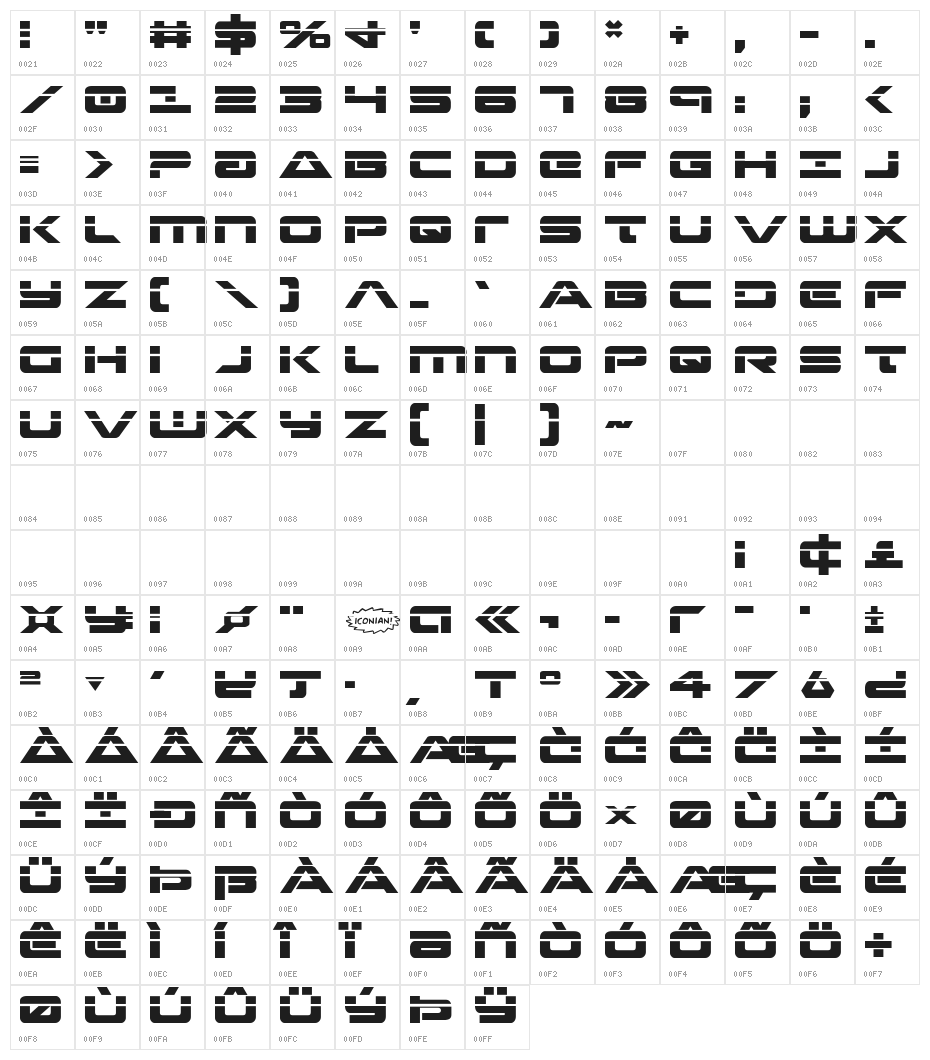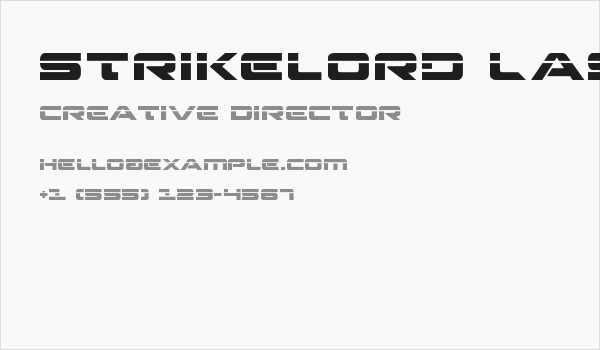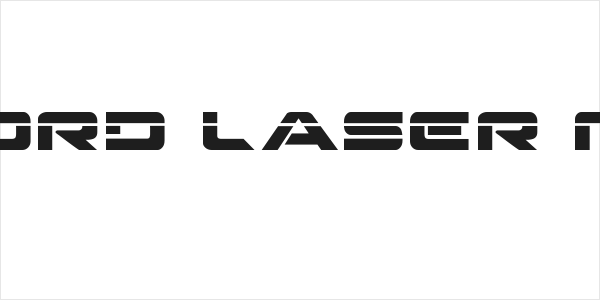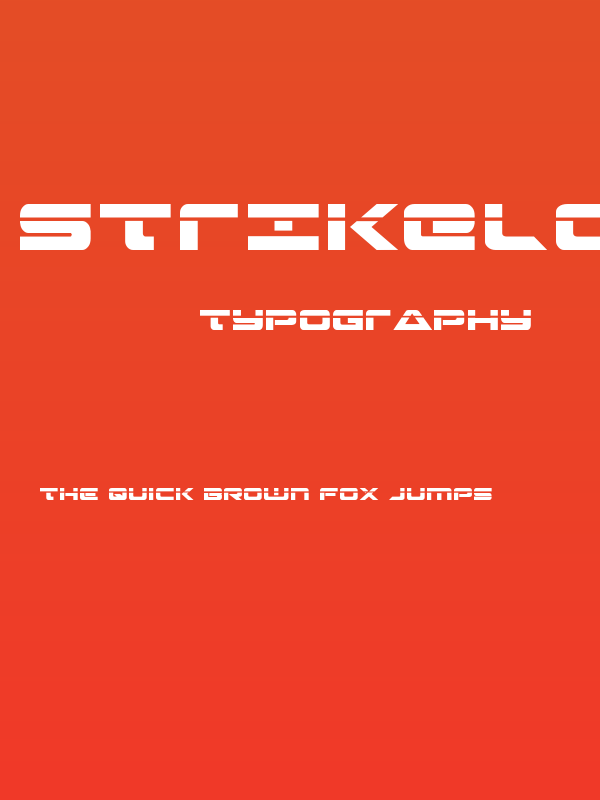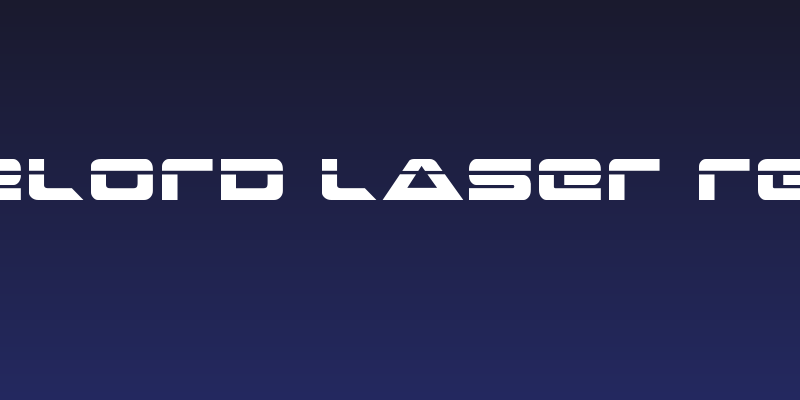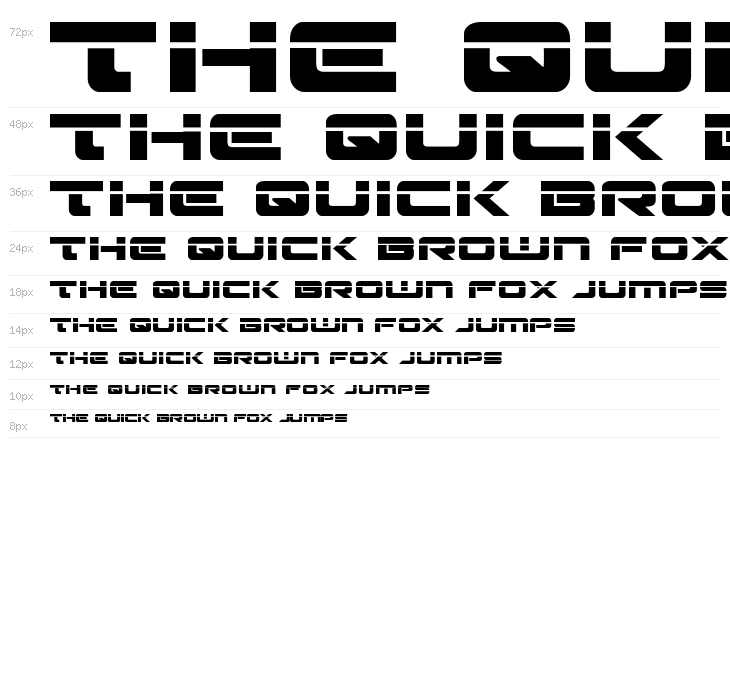
Strikelord Laser Regular Font
Strikelord Laser Regular Description
This font features a futuristic and geometric design, characterized by sharp angles and a bold presence. The letters are constructed with a stencil-like appearance, where certain segments are intentionally disconnected, creating a dynamic and edgy look. The uppercase and lowercase letters maintain a consistent style, with a strong emphasis on horizontal and vertical lines. The numerals and special characters follow the same design principles, ensuring uniformity across all glyphs. This font is ideal for projects that require a modern and tech-inspired aesthetic.
| Proposed Projects | Ideal for sci-fi themed posters, video game titles, tech branding, and futuristic event flyers. |